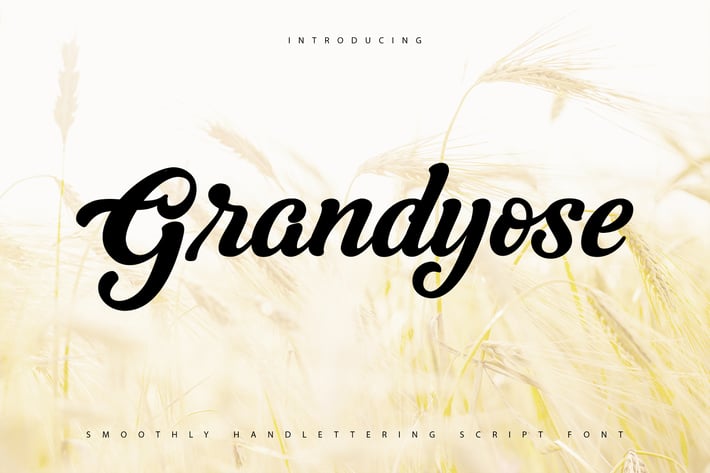
Grandyose | Smoothly Handlettering Script Font
Grandyose | Smoothly Handlettering Script Font with a calligraphy style, So beautiful on invitation like greeting cards, branding materials, business cards, quotes, posters, and more!